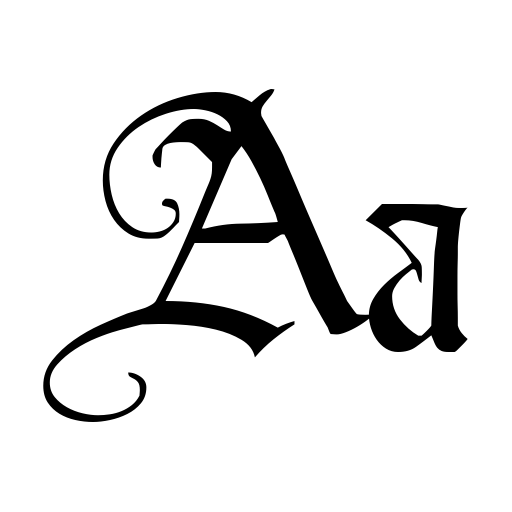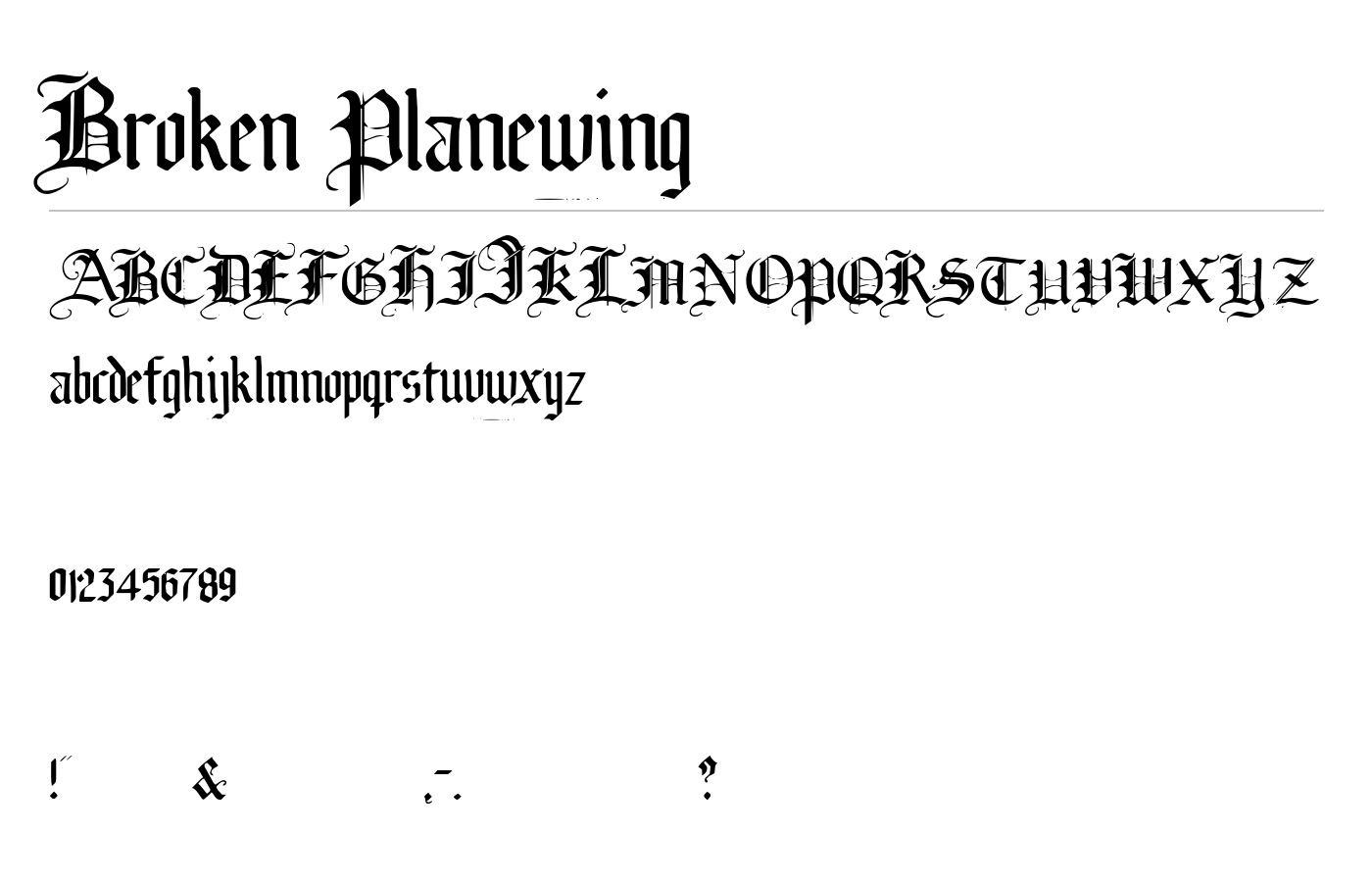
Broken Planewing is a bold blackletter typeface with dramatic, sharp strokes and intricate ornamental details that capture a historic, gothic feel. Its strong vertical emphasis and condensed letterforms make it perfect for eye-catching headlines, logos, or designs seeking an old-world, medieval atmosphere. This font works well in creative projects where a sense of tradition and intensity is desired.
Broken Planewing Font